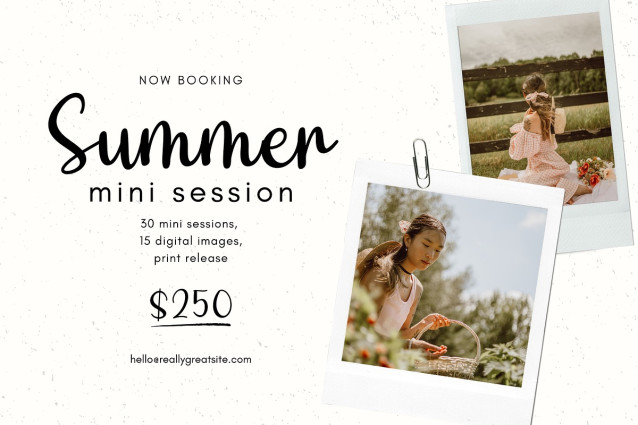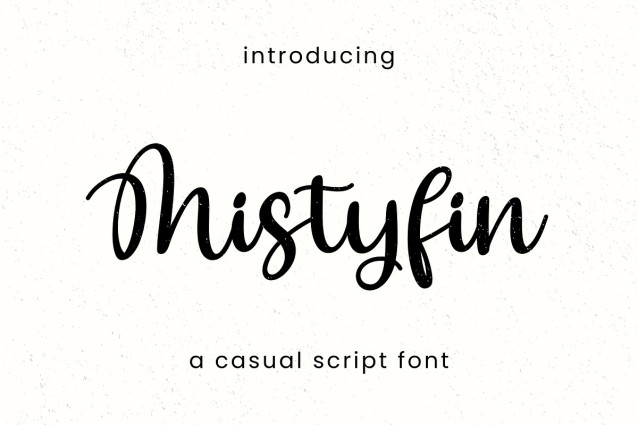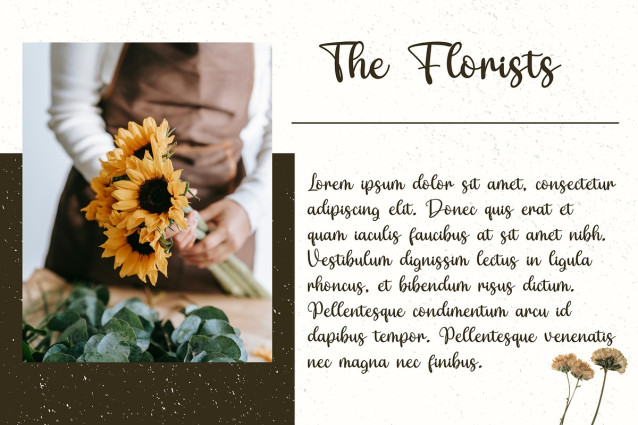
Mistyfin Script Font
Mistyfin Script Font – The Perfect Modern Script Font Mistyfin is a beautiful modern script font, featuring a complete set of uppercase and lowercase letters, multilingual symbols, numbers, and punctuation. With a smooth ballpoint pen texture, this font is designed to add an elegant and natural touch to your designs.
It is PUA encoded, allowing easy access to all its glyphs and ligatures. This font is perfect for a wide range of design needs